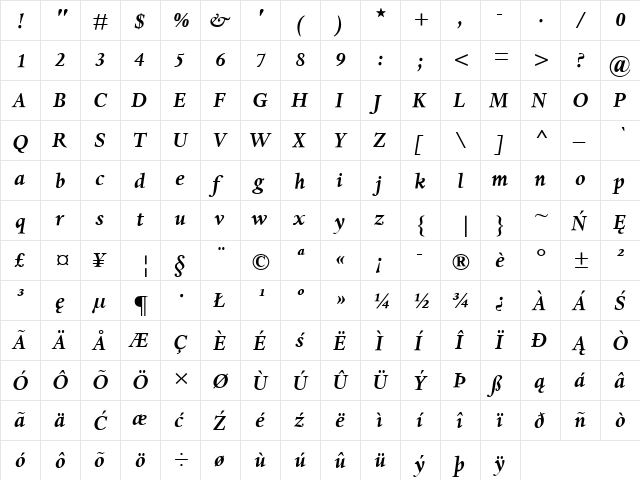
Dante Bold Italic
Design Context for Dante Typeface
Dante takes a measured approach to typography — its balanced proportions and neutral character make it a reliable workhorse for both digital and print work. The dynamic lean of this cut emphasises speed and emphasis in any layout. Its bold stroke weight gives it real presence on the page.
Pro Tip: Use Dante for emphasis, pull quotes, and subheadings where its slanted energy can add rhythm to the layout.